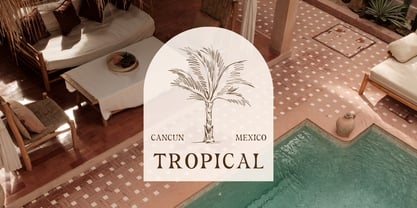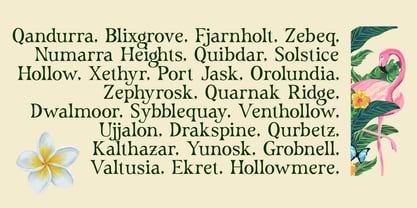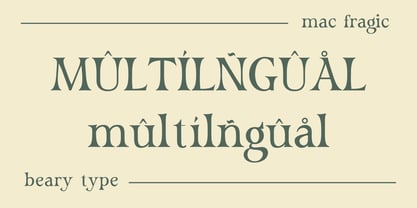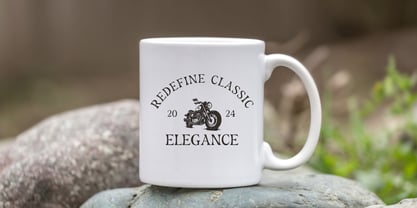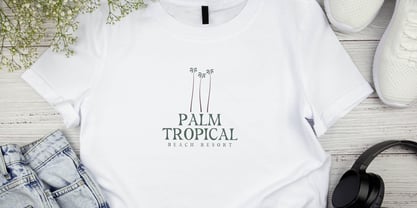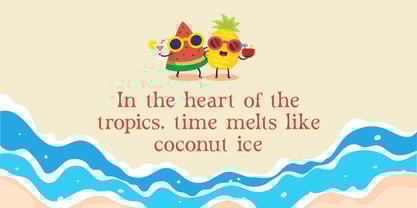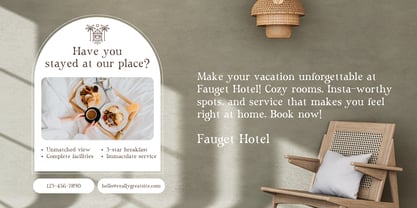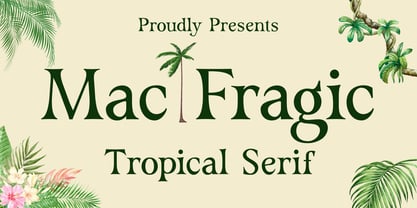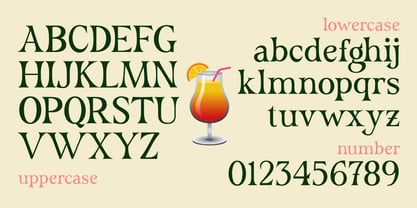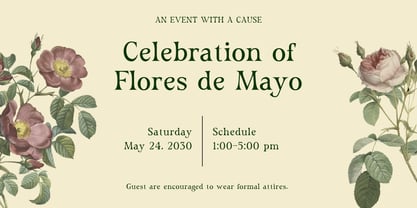
Mac Fragic
Mac Fragic Tropical Serif is a vibrant and refined typeface that blends classic serif elegance with the warmth and charm of tropical aesthetics.
Designed to evoke feelings of sun-drenched sophistication and effortless style, Mac Fragic features smooth, organic curves and subtly exotic letterforms that bring a fresh twist to traditional serif design.
With its expressive character and stylish rhythm, this font is perfect for branding projects that seek to stand out while maintaining a high-end, relaxed feel. Ideal for destination weddings, resort branding, summer collections, or editorial content that calls for a touch of escapism, Mac Fragic radiates both creativity and class.
The font’s high-contrast strokes and elegant serifs strike a balance between structure and fluidity, making it versatile for both bold headlines and legible body text. Each glyph is carefully crafted to ensure harmony and visual appeal, whether used in minimalist layouts or richly designed compositions.
Mac Fragic Tropical Serif is a go-to choice for designers aiming to capture a sense of paradise, lifestyle luxury, and artistic flair. From bohemian product labels to upscale event invitations and modern travel magazines, this font adds a sun-kissed sophistication that instantly elevates any project.